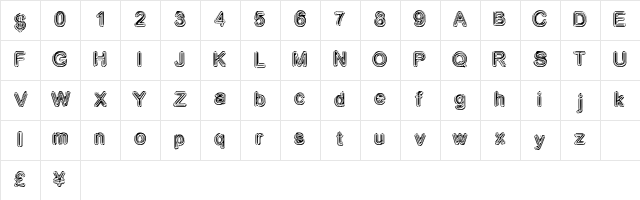
NeonDisco Regular
| Foundry | Xerographer Fonts |
| Designer | Xerographer Fonts Max Infeld |
Design Context for NeonDisco Typeface
NeonDisco channels digital-age aesthetics through its sharp, structured letterforms — ideal for brands that want to signal innovation.
Pro Tip: Use NeonDisco in combination with a neutral sans for body text. Let it define the brand voice in headlines while keeping reading comfortable elsewhere.